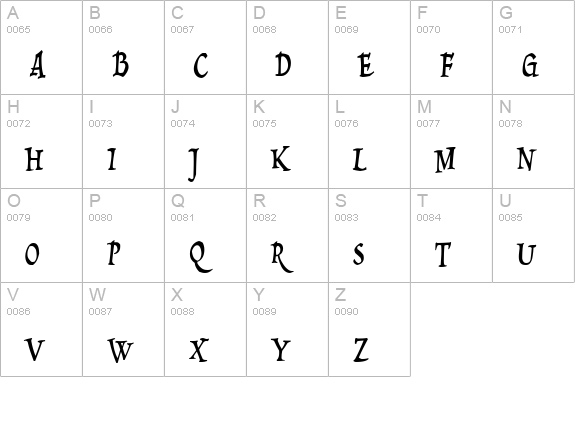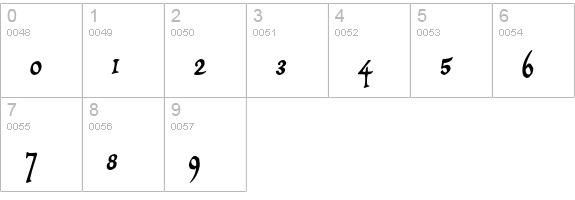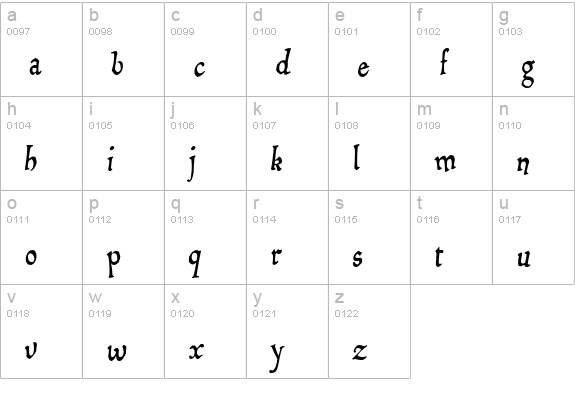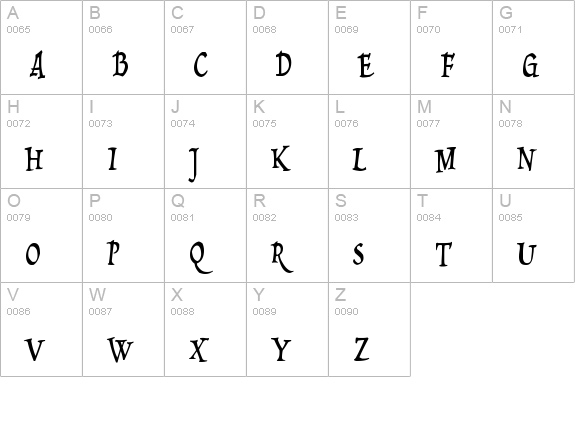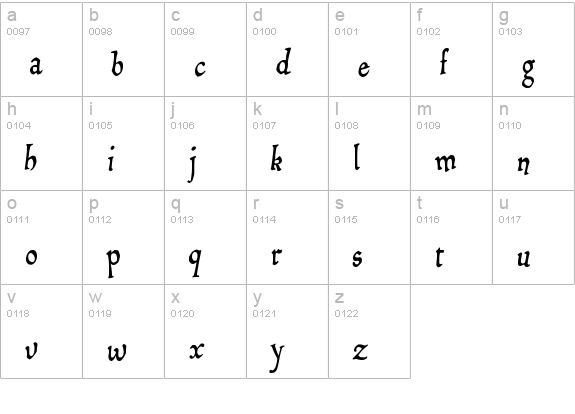
Draculon Font Details
Introducing Draculon font, a striking and modern typeface designed to make your text stand out with its bold and edgy appearance. Perfect for adding a touch of sophistication and uniqueness to your projects, Draculon font exudes a sense of power and mystery. This versatile font is ideal for a wide range of applications, from branding and advertising to social media graphics and invitations. Its clean lines and sharp angles give it a contemporary yet timeless look that is sure to captivate your audience. What's even better is that Draculon font is available for free download at FontsMarket.com. So go ahead and enhance your designs with this eye-catching typeface today!